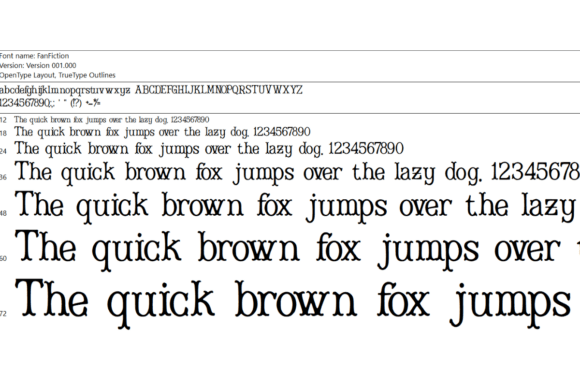
Introduction to Fanfiction Font
Do you remember that moment when you stumbled upon the perfect font to elevate your creative project? For many designers, it’s a thrill that never gets old. As you browse through the vast array of fonts available, you come across one that stands out – the Fanfiction Font. Its unique design is a game-changer, transforming standard text into a stunning typographical masterpiece.
With its captivating aesthetic, the Fanfiction Font is a valuable design resource that enables designers to leave a lasting impact on their audience. Whether you’re working on a personal project or a commercial endeavor, this font is sure to command attention and add a touch of sophistication to your written communication. Plus, it’s available for a free download, making it an accessible addition to your design arsenal.
From projects with a transparent background to high-quality publications, the Fanfiction Font is the perfect companion for any creative endeavor. Its versatility and appeal make it an ideal choice for designers looking to take their work to the next level.
Key Features of Fanfiction Font
- High-quality design resource ideal for creative projects, such as fan art, graphic novels, or digital comics.
- Unique and customizable font with a transparent background, allowing for easy layering and blending with other design elements.
- Resolution-independent, ensuring crisp and clear text display on high-resolution screens and devices.
- Perfect for use in digital and print media, including books, magazines, and online publications, due to its high-quality design and versatility.
- Designed specifically for use in creative projects, including fanfiction, graphic novels, and other forms of digital storytelling.
Honest Review: Fanfiction Font
I recently had the chance to work with the Fanfiction Font, and I must say it’s a great addition to my design arsenal. This font is perfect for creative projects that require a touch of whimsy and personality. I was able to download it for free, which was a major bonus.
One of the standout features of the Fanfiction Font is its high quality and versatility. The font comes with a transparent background, making it easy to use with any design element. I’ve used it for everything from book covers to social media graphics, and it always adds a unique touch.
- High quality design with a transparent background
- Perfect for creative projects that require a unique touch
- May not be suitable for formal or professional designs
- Limited font styles available
Overall, I’m really impressed with the Fanfiction Font. It’s a great resource for designers who want to add a bit of personality to their creative projects. With its high quality design and transparent background, it’s a must-have for anyone looking to elevate their design game.
Introduction to Fanfiction Font
The Fanfiction Font is a unique and creative design resource ideal for various projects, including fan art, cosplay, and creative writing. This font is available for free download and features a transparent background, making it perfect for adding a personal touch to your designs.
Tips for Getting the Most Out of Fanfiction Font
To get the most out of the Fanfiction Font, consider the following tips:
- Experiment with different font sizes and styles to achieve the desired effect.
- Combine the Fanfiction Font with other design elements to create a unique look.
- Use the font in creative ways, such as creating a custom logo or title.
The Fanfiction Font is perfect for various creative projects, including:
- Creating fan art and cosplay designs.
- Designing social media posts and graphics.
- Creating presentations and documents.